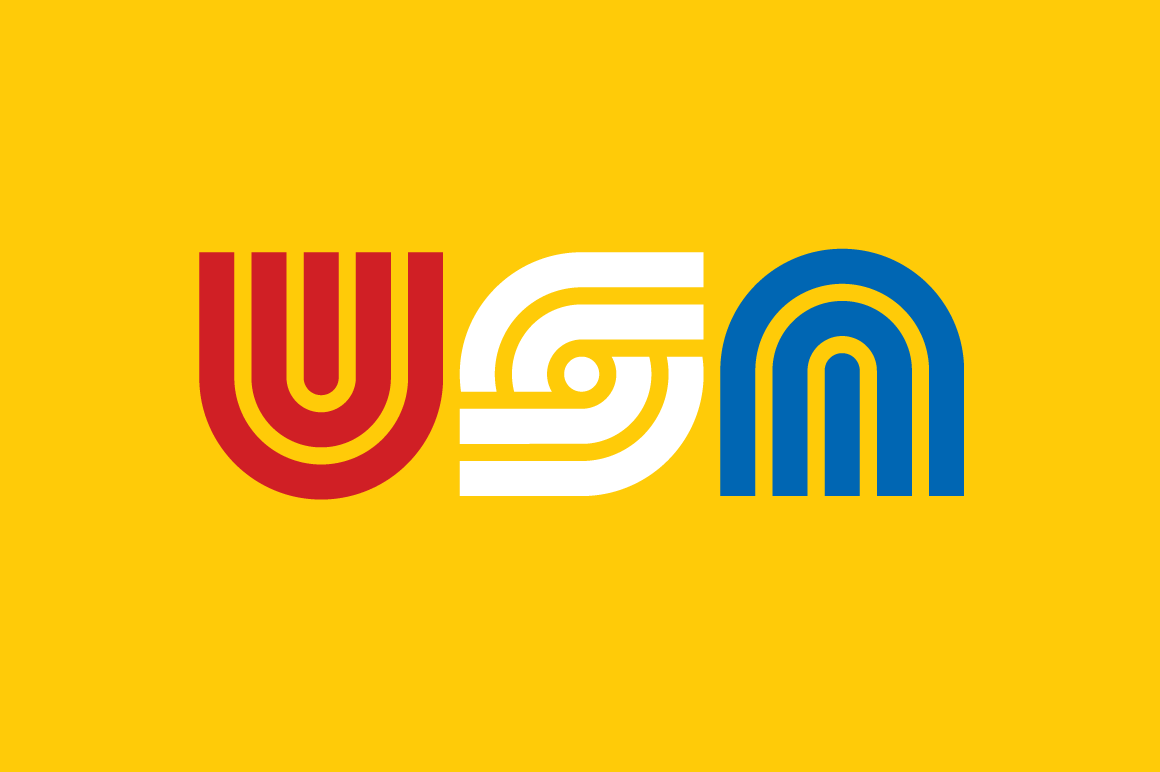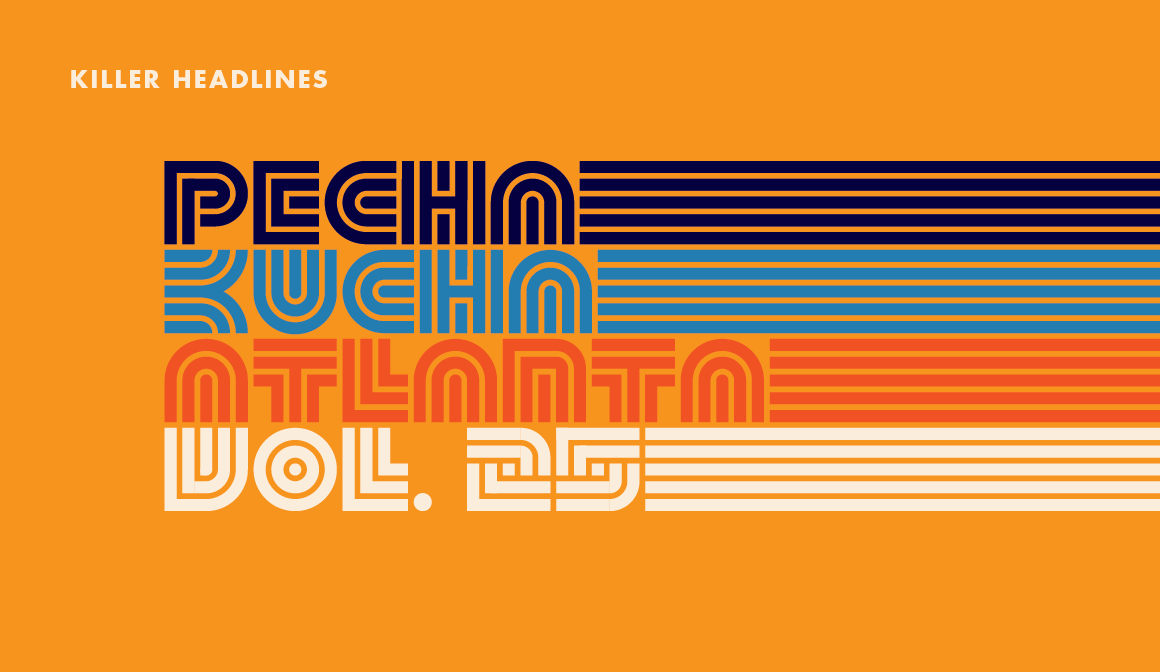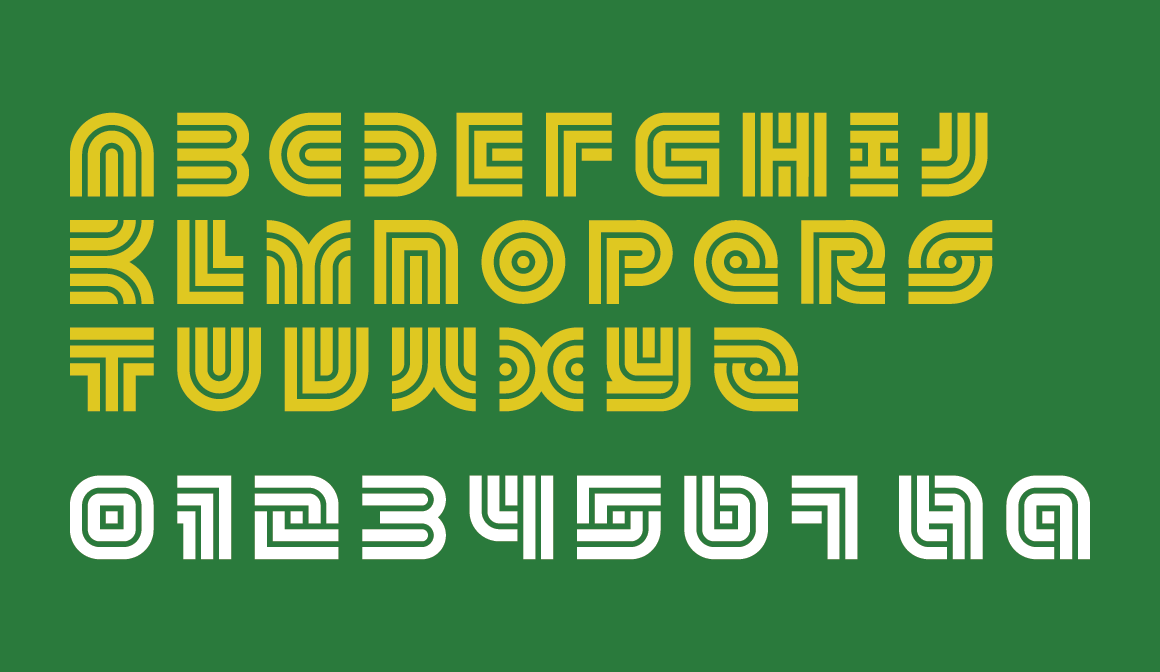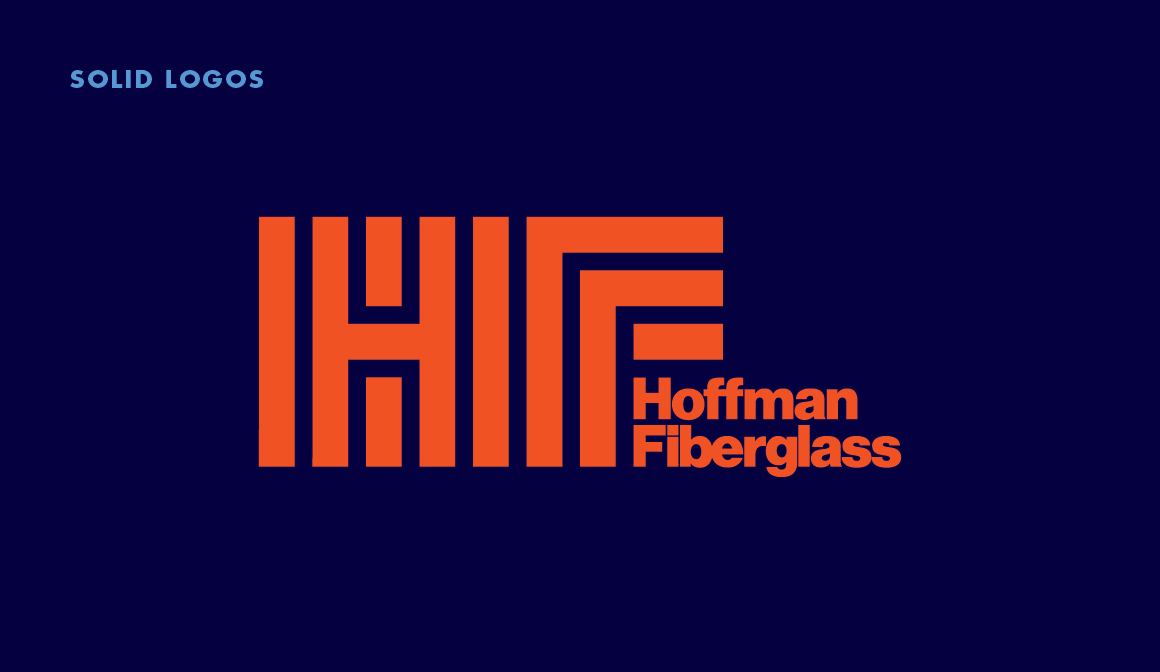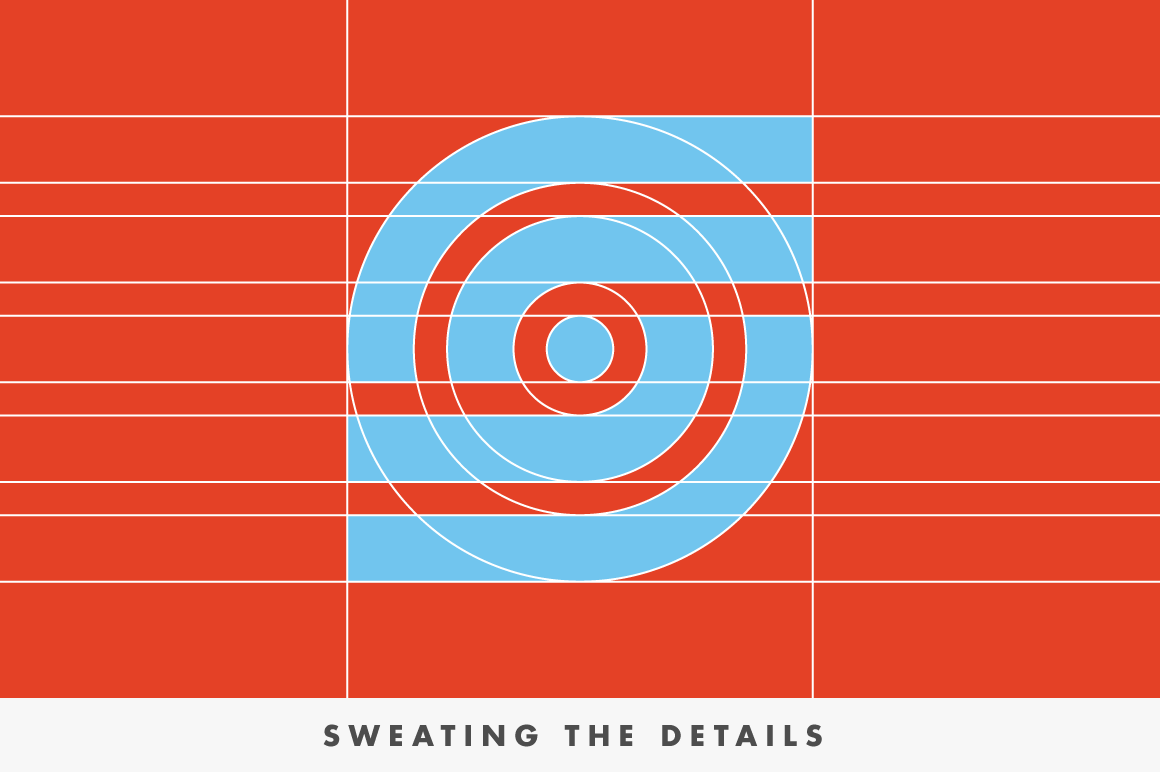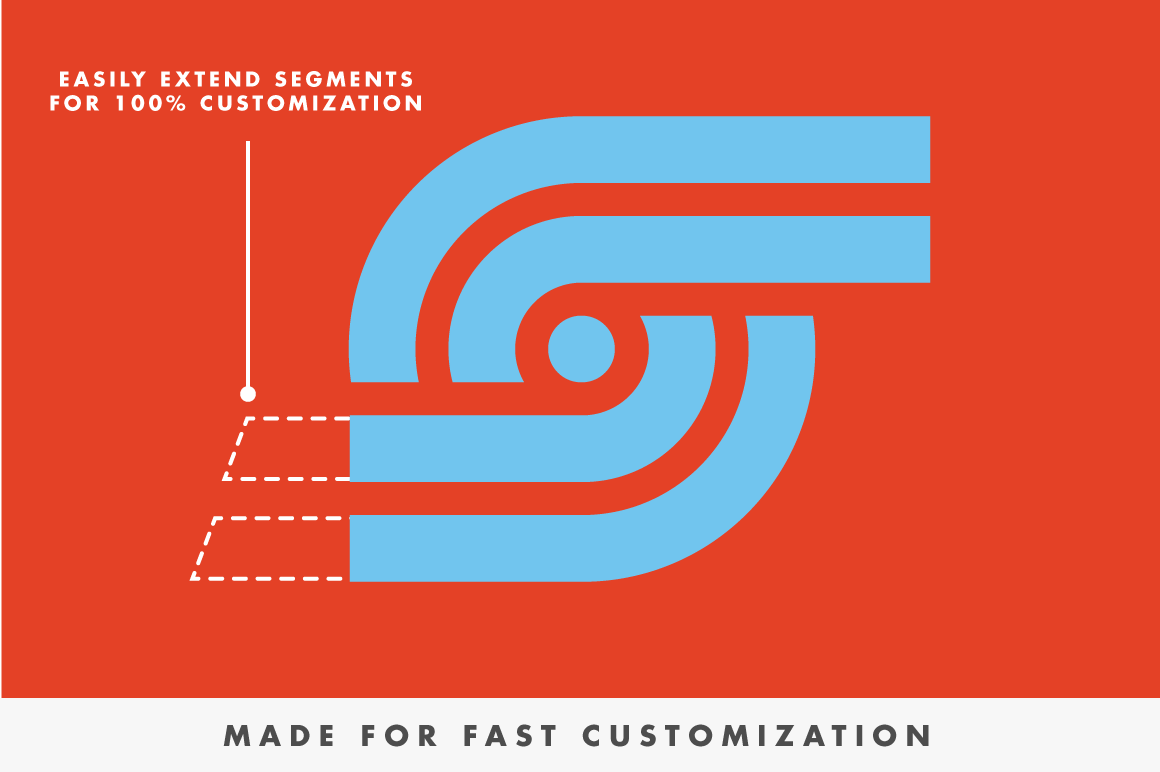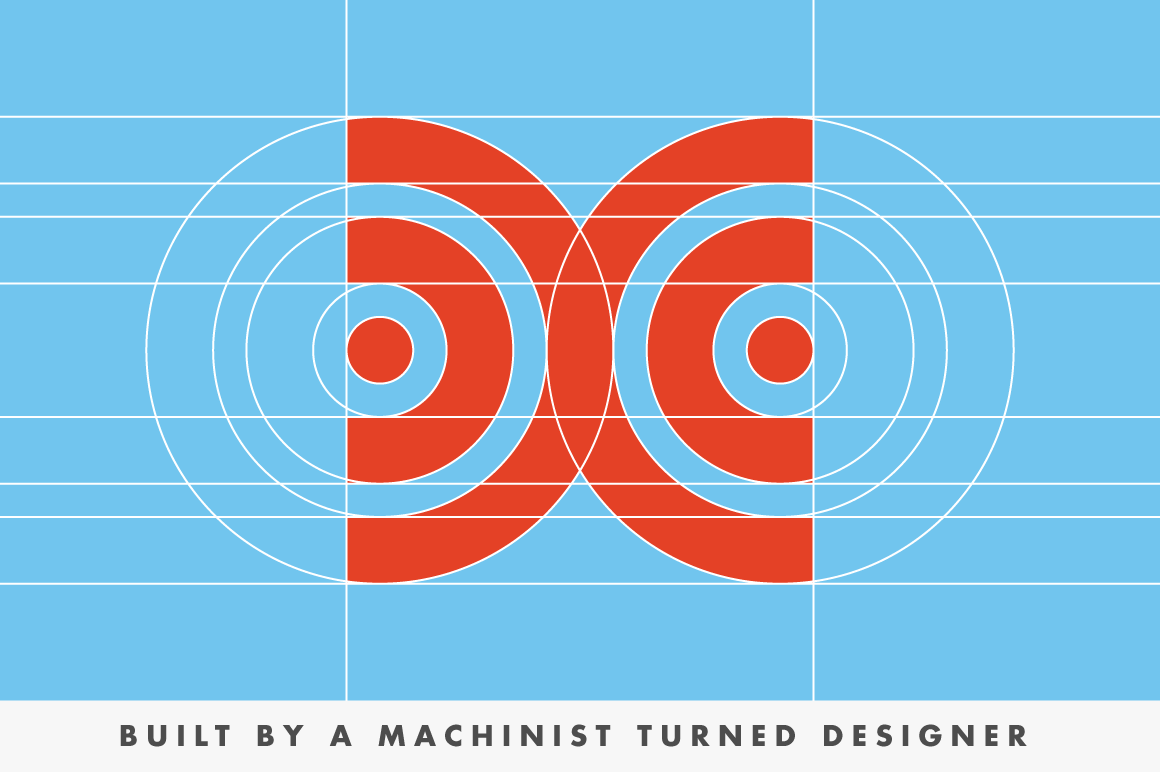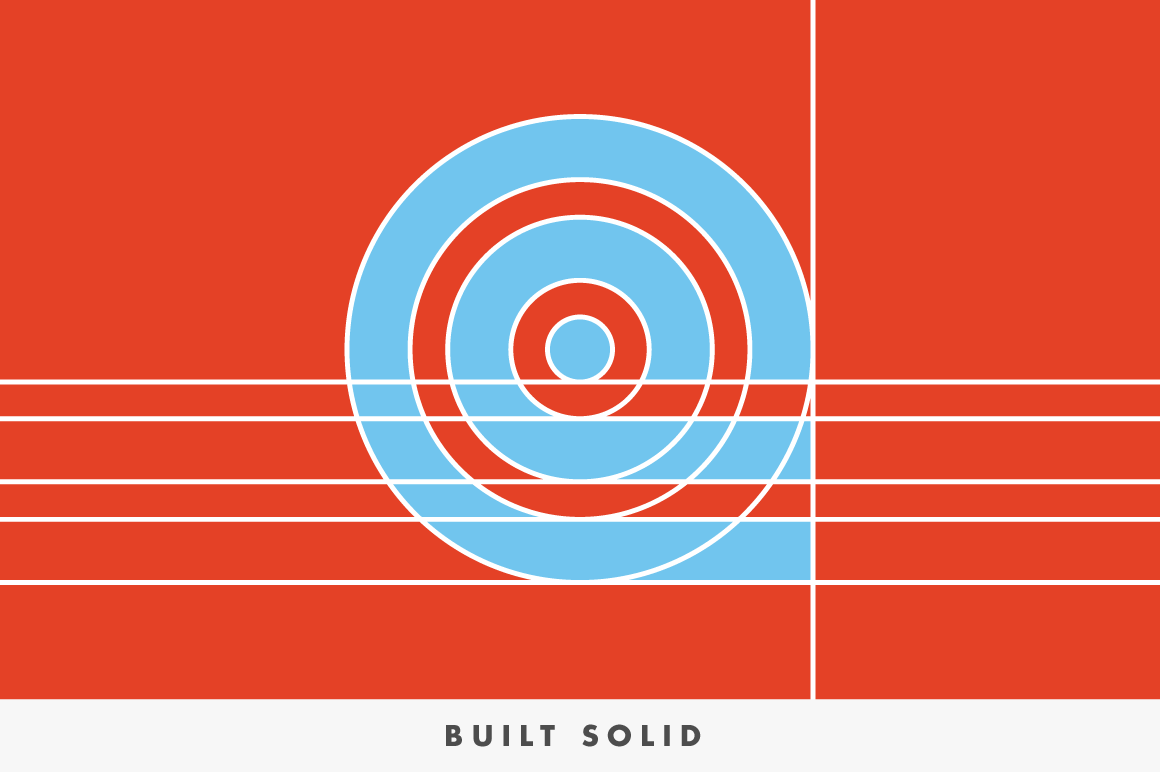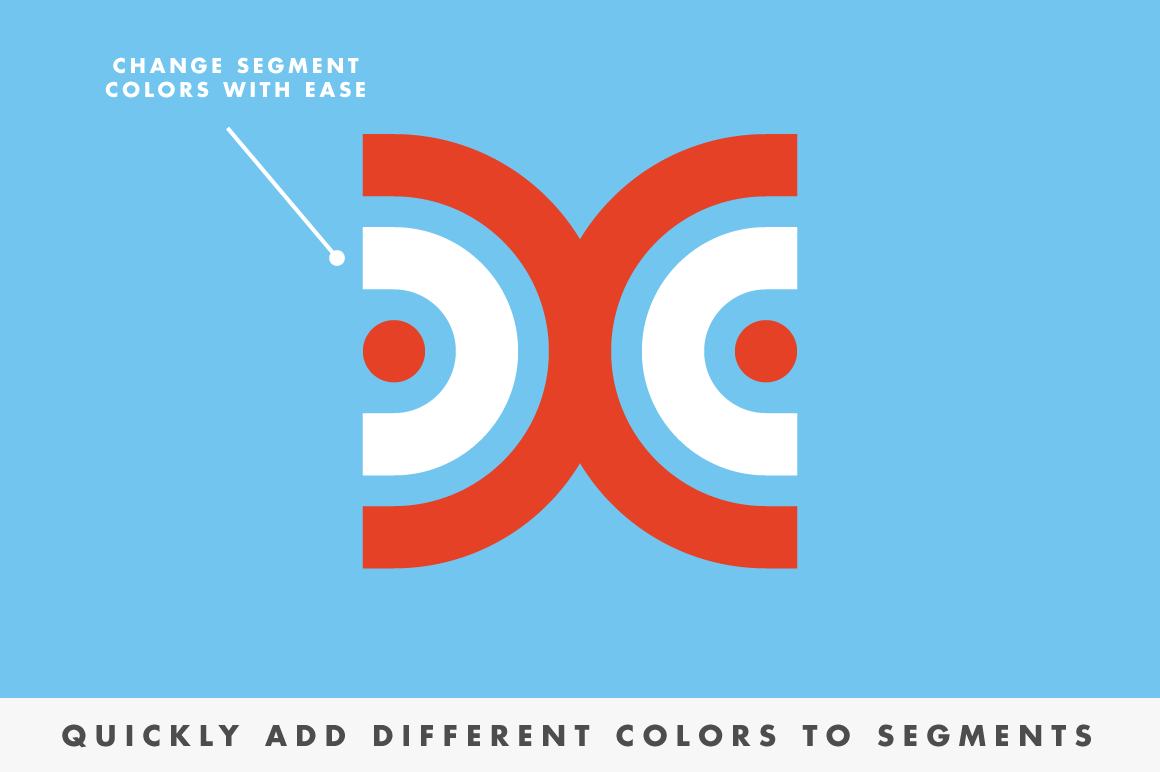
Not just any logo or typographic symbol. But the kind that you can proudly print on shirts, posters, and websites.
\nSounds like a dream right? Not anymore. SOLID70 does all this!
- Create beautiful, custom logos and typography quickly and easily \n
- Each character is well balanced and kerned \n
- Engineered to easily adjust anchor points to create a seamless custom logo \n
- Easily customizable outlines and colors \n
- Perfect for creating custom work but also looks great without doing anything \n
\n\nHere's How It Works
It's that easy! The result is beautiful custom designs that look like they took you hours to make (don't worry, we won't tell anyone your secret).
\nHere's Why SOLID70 is Unique
\nWe made this typeface to make your life easier.
- Each character is well balanced and kerned (no tweaking the kerning and trying to get stuff to line up right, we spent the time to get this right) \n
- It looks great right out of the box. SOLID70 is perfect for creating custom work. But it looks great without doing anything. \n
- You'll feel like it's a little too easy to customize. Seriously, it feels like this typeface is doing the work for you. \n
This New Font Practically Creates Logos for You
Do you want to create beautiful, custom logos and typography FAST with a few mouse clicks?
Imagine if you could type a few characters, convert them to outlines and then easily adjust anchor points to create a custom logo.
Not just any logo or typographic symbol. But the kind that you can proudly print on shirts, posters, and websites.
Sounds like a dream right? Not anymore. SOLID70 does all this!
- Create beautiful, custom logos and typography quickly and easily
- Each character is well balanced and kerned
- Engineered to easily adjust anchor points to create a seamless custom logo
- Easily customizable outlines and colors
- Perfect for creating custom work but also looks great without doing anything
Here's How It Works
It's that easy! The result is beautiful custom designs that look like they took you hours to make (don't worry, we won't tell anyone your secret).
Here's Why SOLID70 is Unique
We made this typeface to make your life easier.
- Each character is well balanced and kerned (no tweaking the kerning and trying to get stuff to line up right, we spent the time to get this right)
- It looks great right out of the box. SOLID70 is perfect for creating custom work. But it looks great without doing anything.
- You'll feel like it's a little too easy to customize. Seriously, it feels like this typeface is doing the work for you.